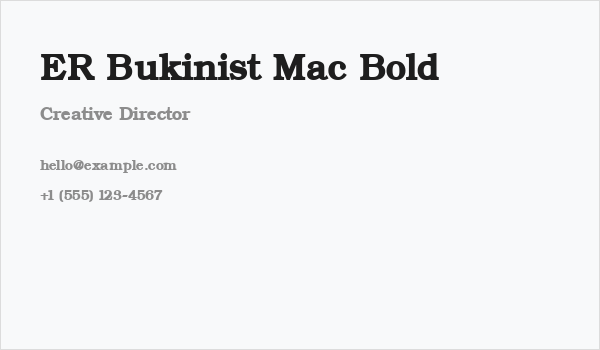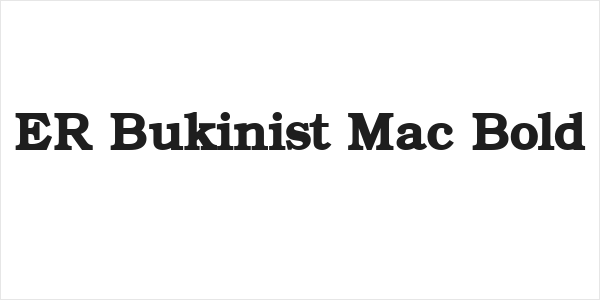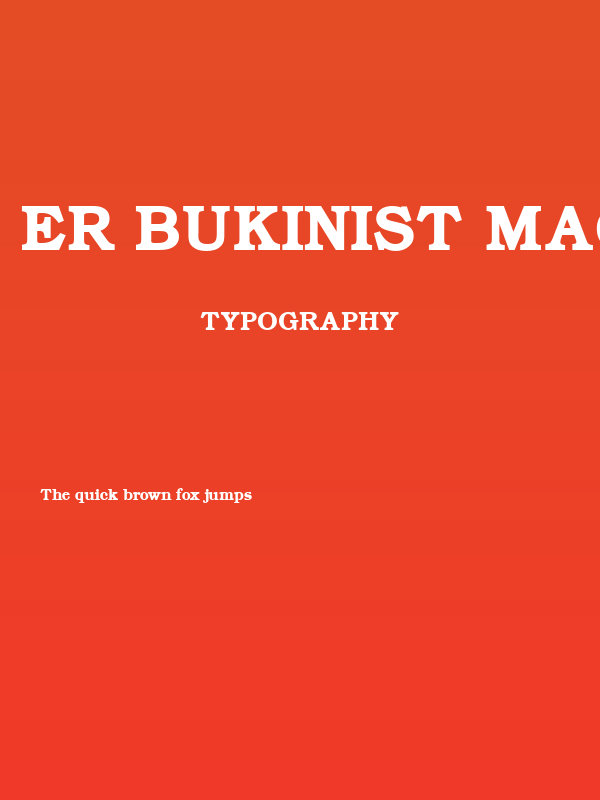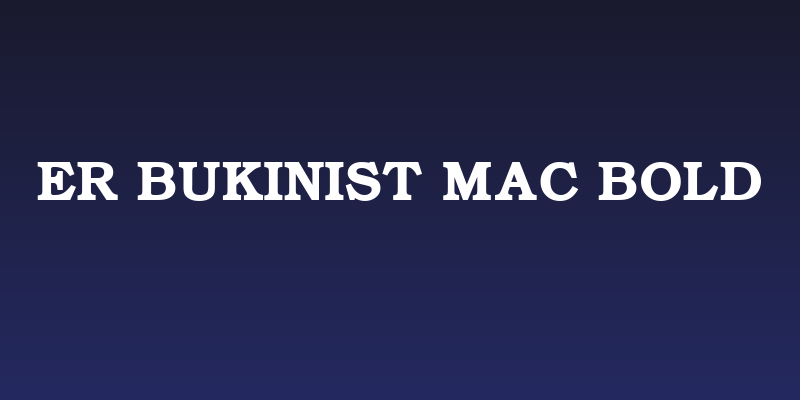
ER Bukinist Mac Bold Font
ER Bukinist Mac Bold Description
This font exhibits a bold and commanding presence with its thick, sturdy strokes and pronounced serifs. The uppercase letters are robust and assertive, while the lowercase letters maintain a consistent weight, offering a harmonious balance. The numerals are equally bold, ensuring readability and impact. Special characters are designed with the same boldness, making them stand out effectively. This font is ideal for projects that require a strong, authoritative typeface.
| Proposed Projects | Ideal for headlines, posters, branding, and any design requiring a bold statement. |